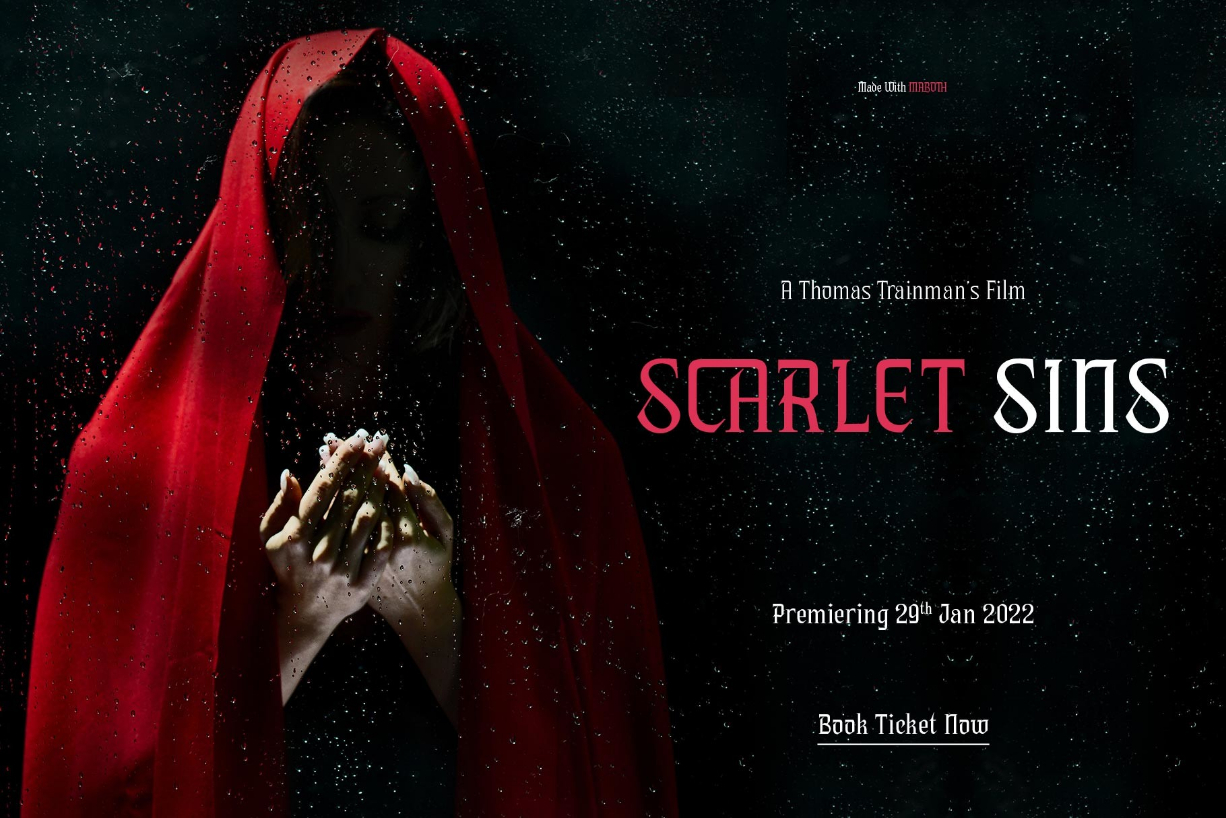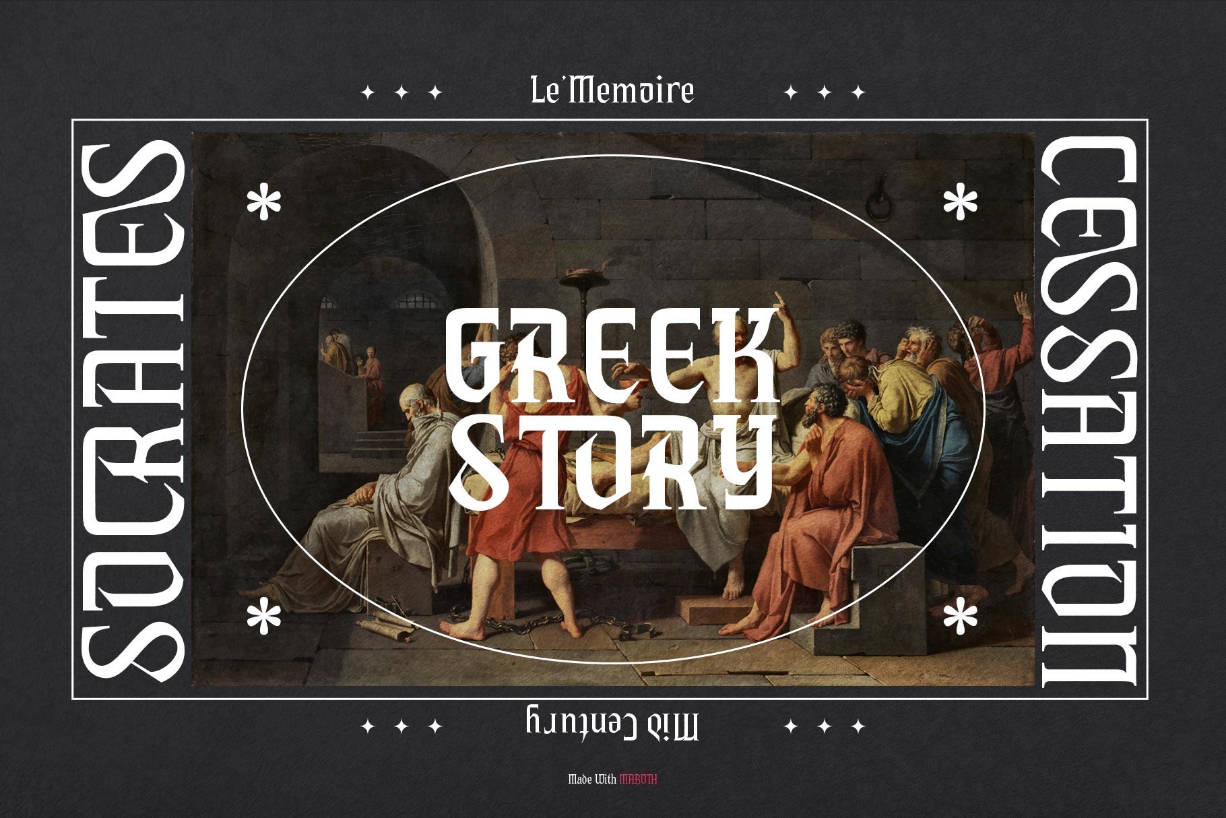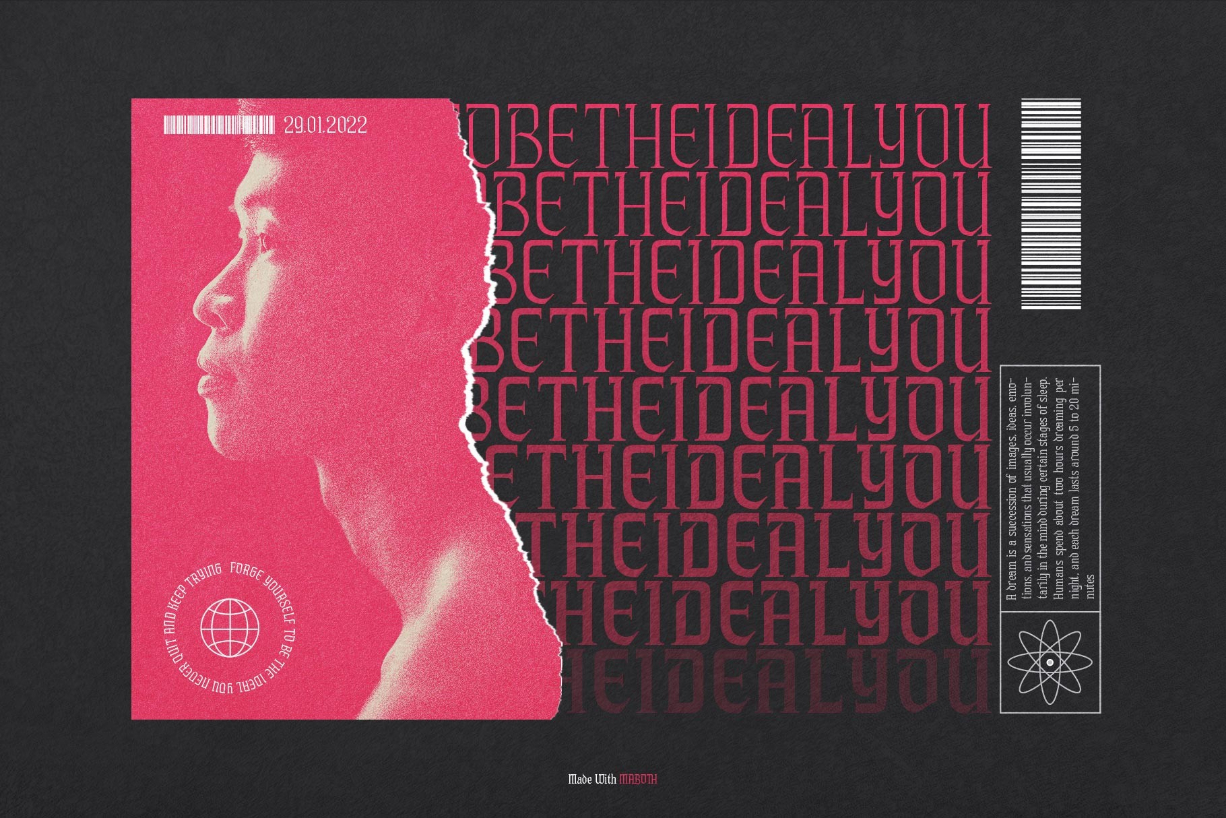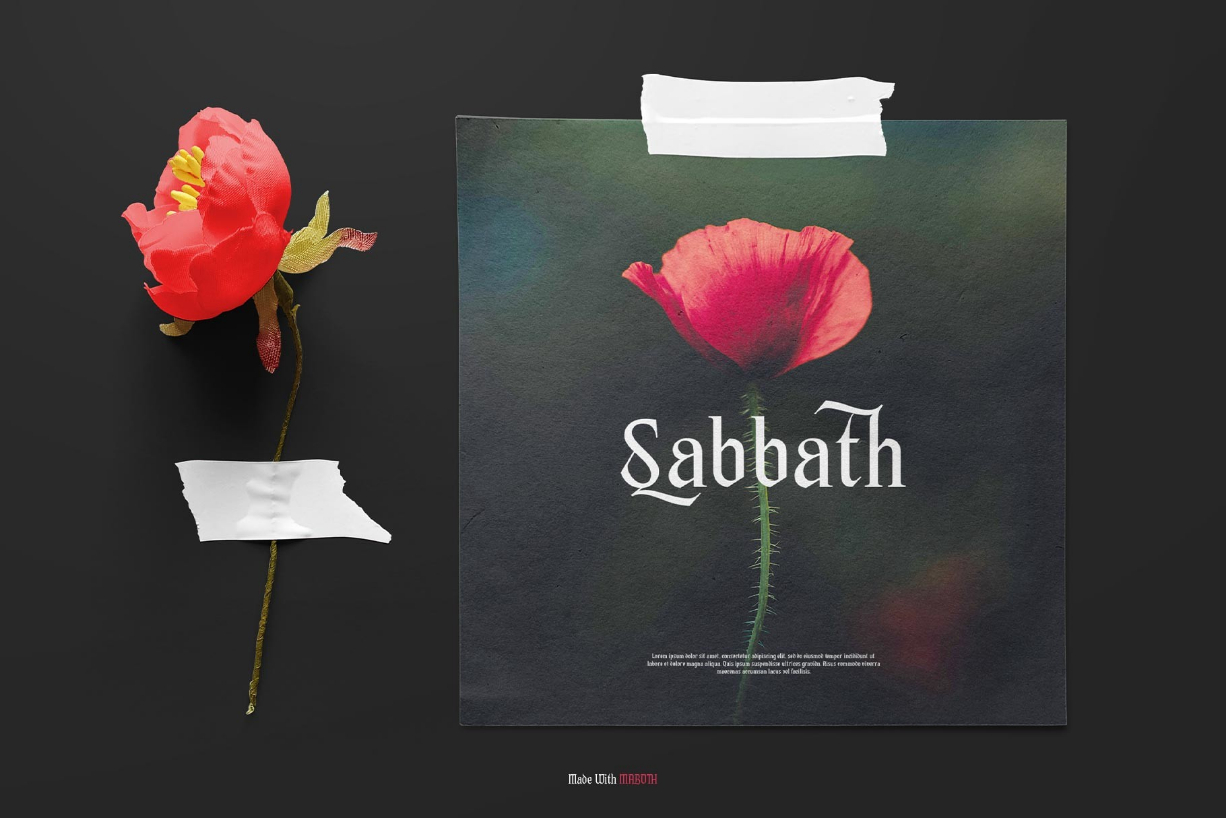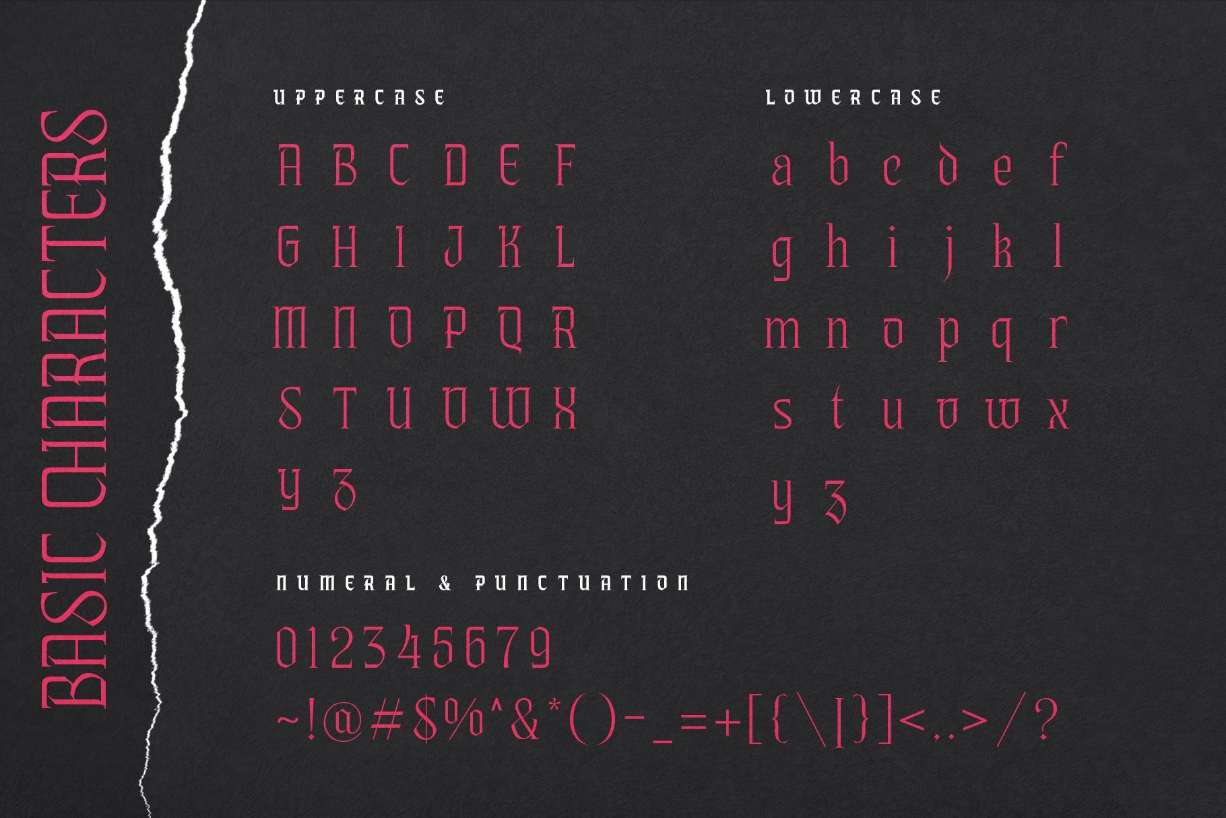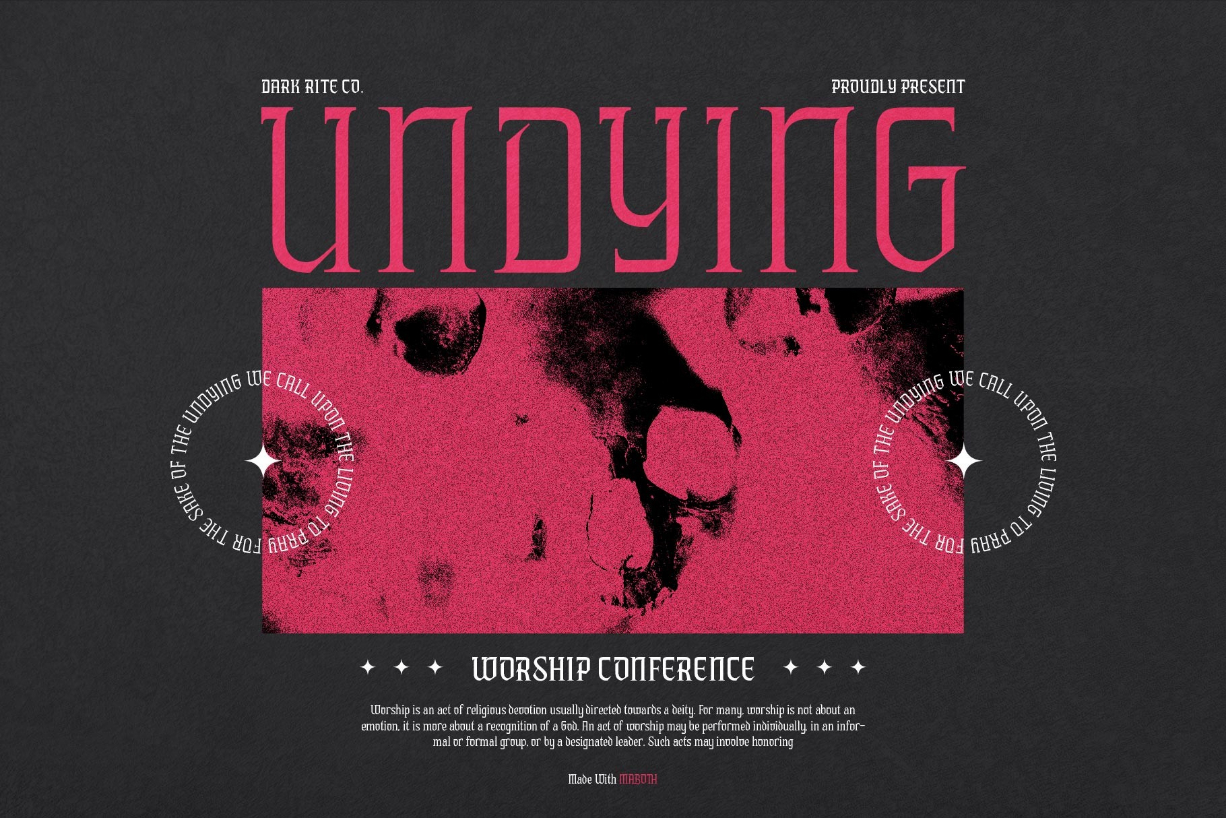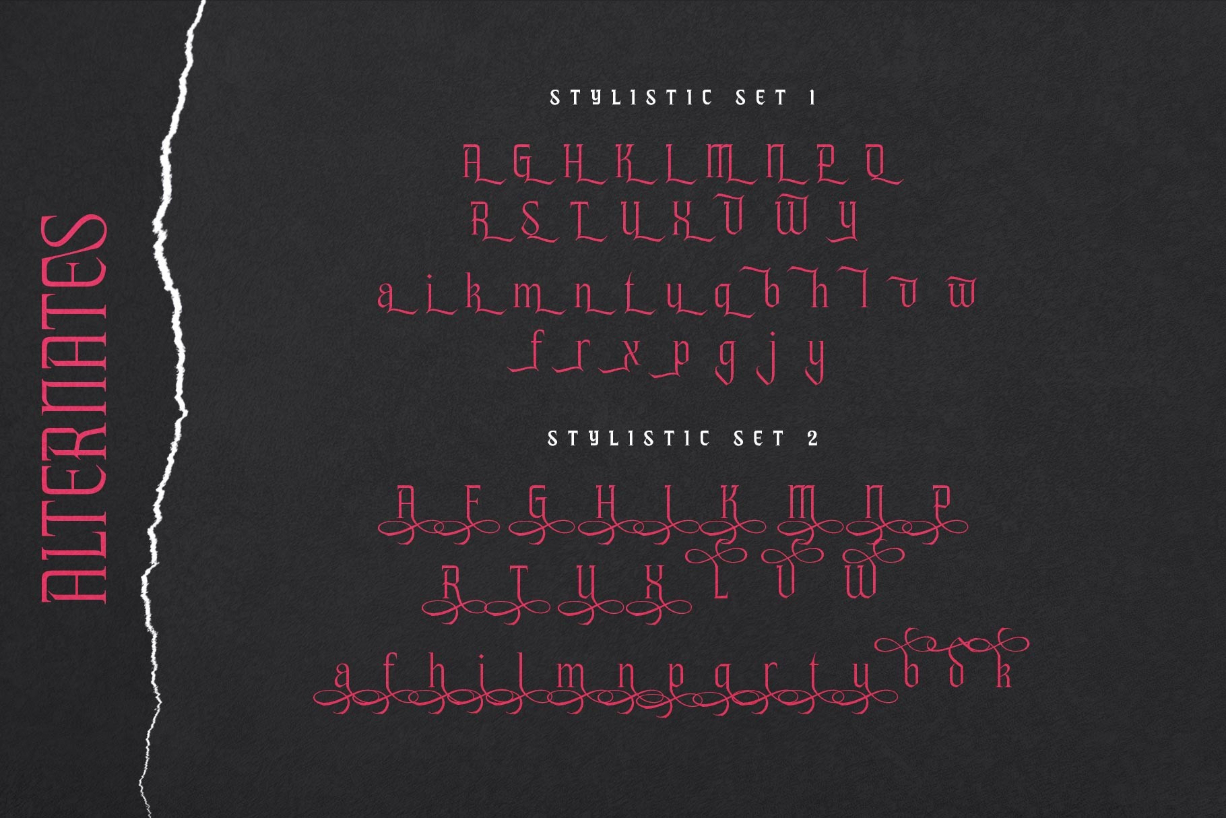
Maboth Font
About Maboth Font
Maboth is an elegant and highly detailed blackletter font. It is PUA encoded which means you can access all of the amazing glyphs and ligatures with ease! Add it confidently to your favorite creations and let yourself be amazed by the outcome generated.